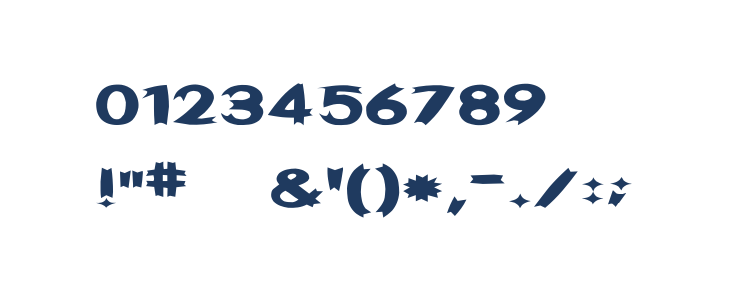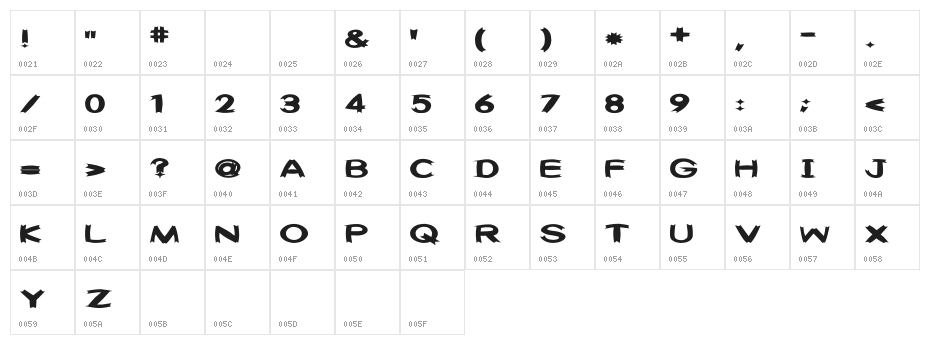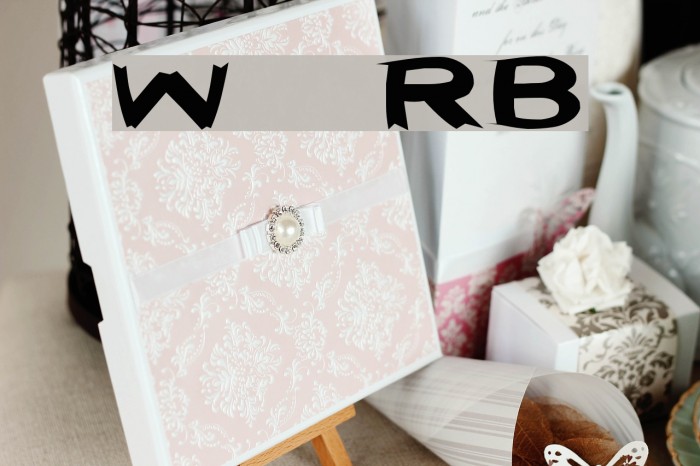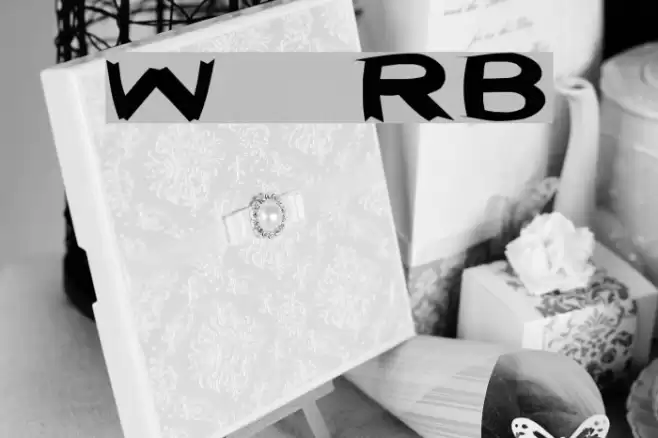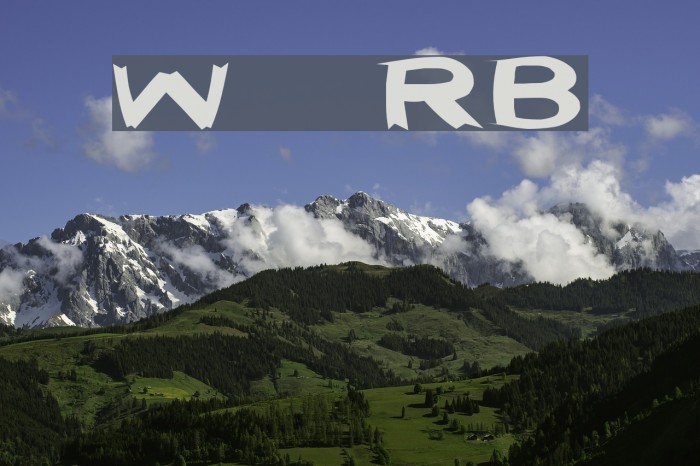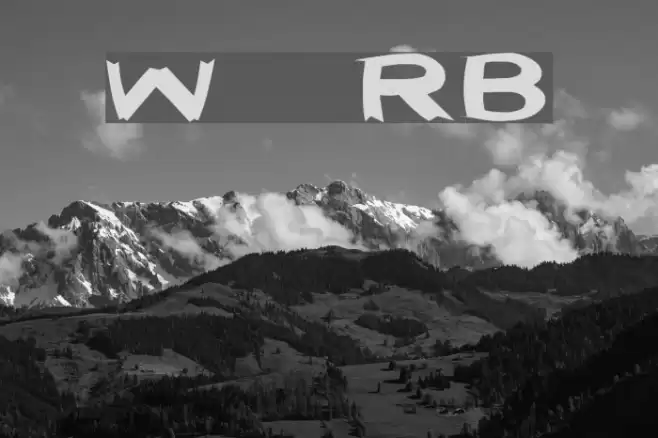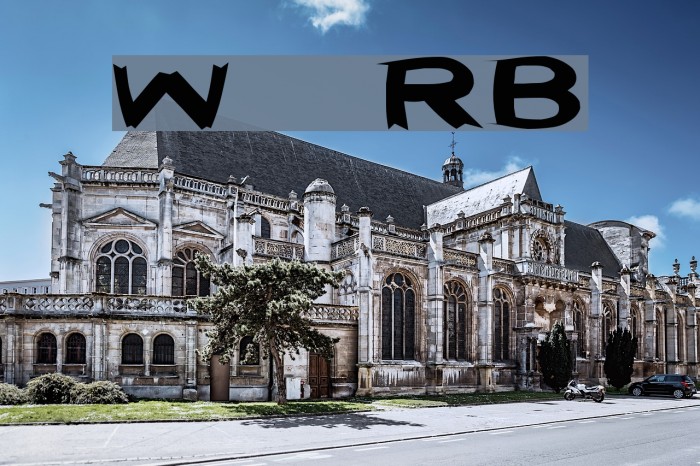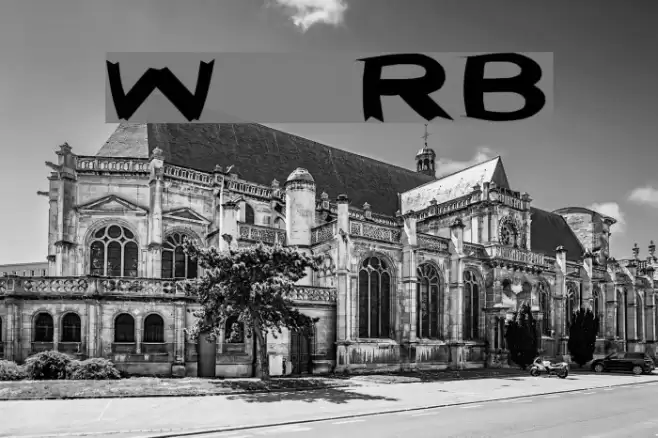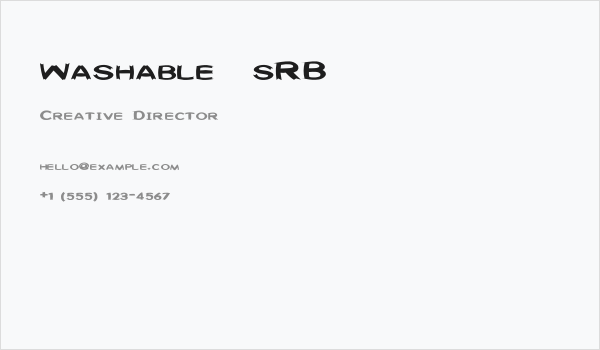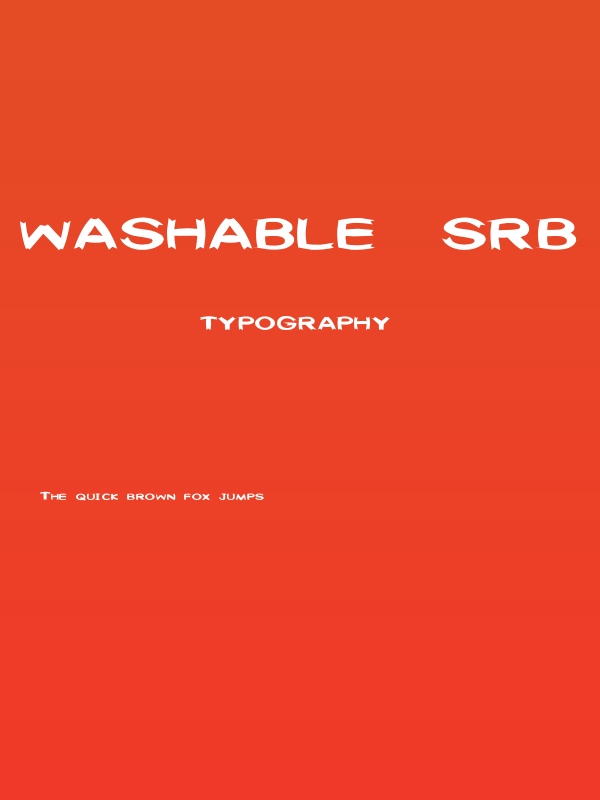
Washable [sRB] Font
Washable [sRB] Description
This font features a bold and dynamic style with sharp, angular edges and a slightly aggressive appearance. The characters are designed with a unique flair, incorporating pointed tips and a sense of movement that gives them an energetic feel. The uppercase and lowercase letters maintain a consistent style, while the numbers and special characters complement the overall design with similar sharpness and boldness. This font is ideal for projects that require a strong visual impact and a modern, edgy aesthetic.
A bold, angular font with sharp edges and dynamic style from Kids fonts.
- Proposed Projects: Ideal for branding, posters, video game titles, and edgy graphic designs.